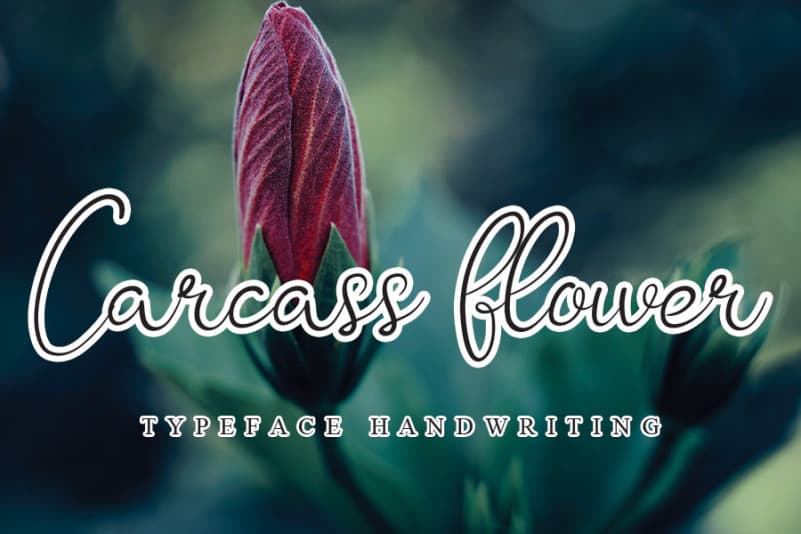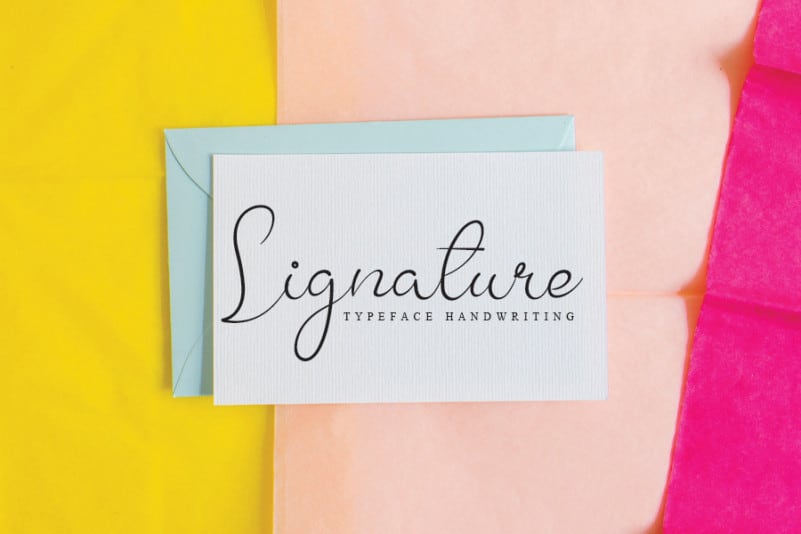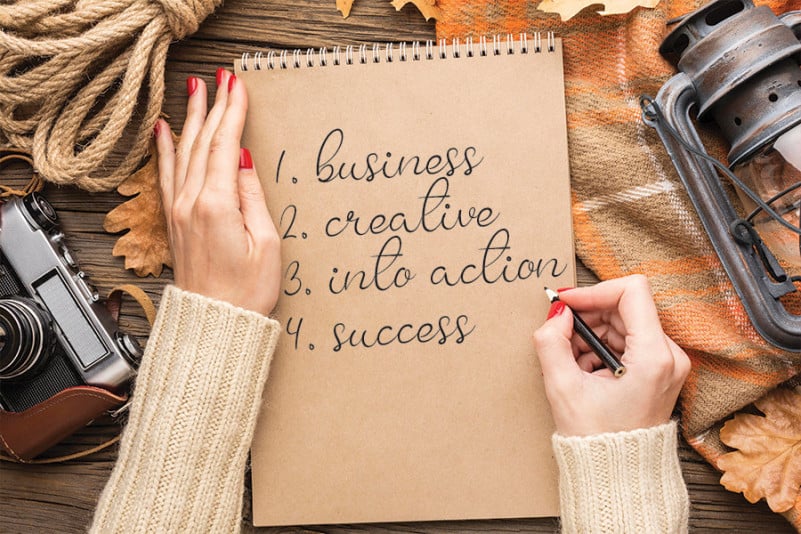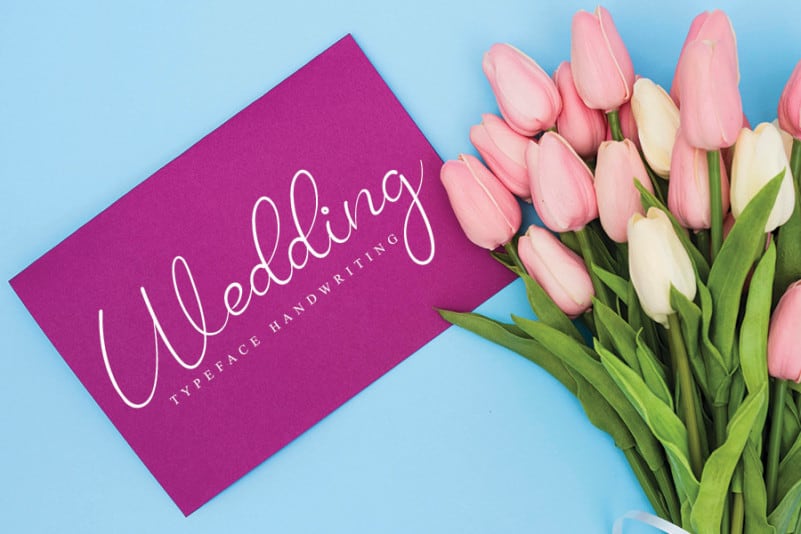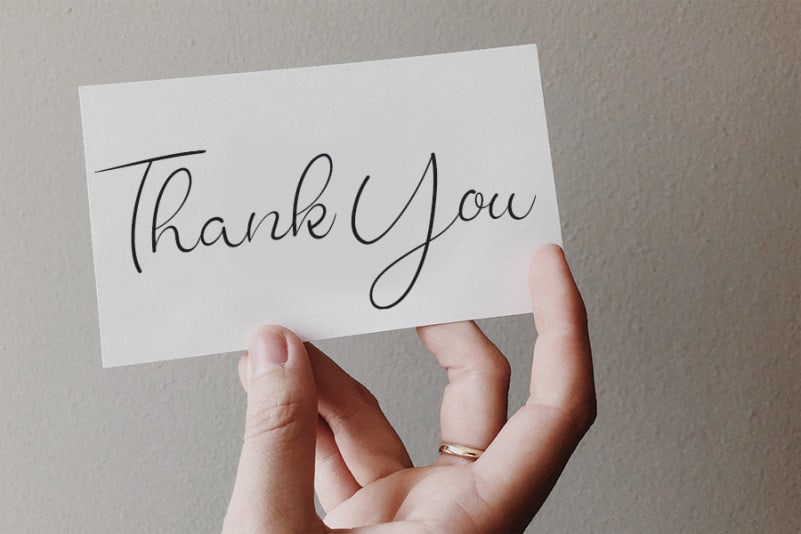
Carcass Flower Font
Carcass Flower Font is a delicate and thin lettered handwritten font. It looks fabulous on invitations, thank you cards, quotes, logos, titles or anything that requires a handwritten touch.